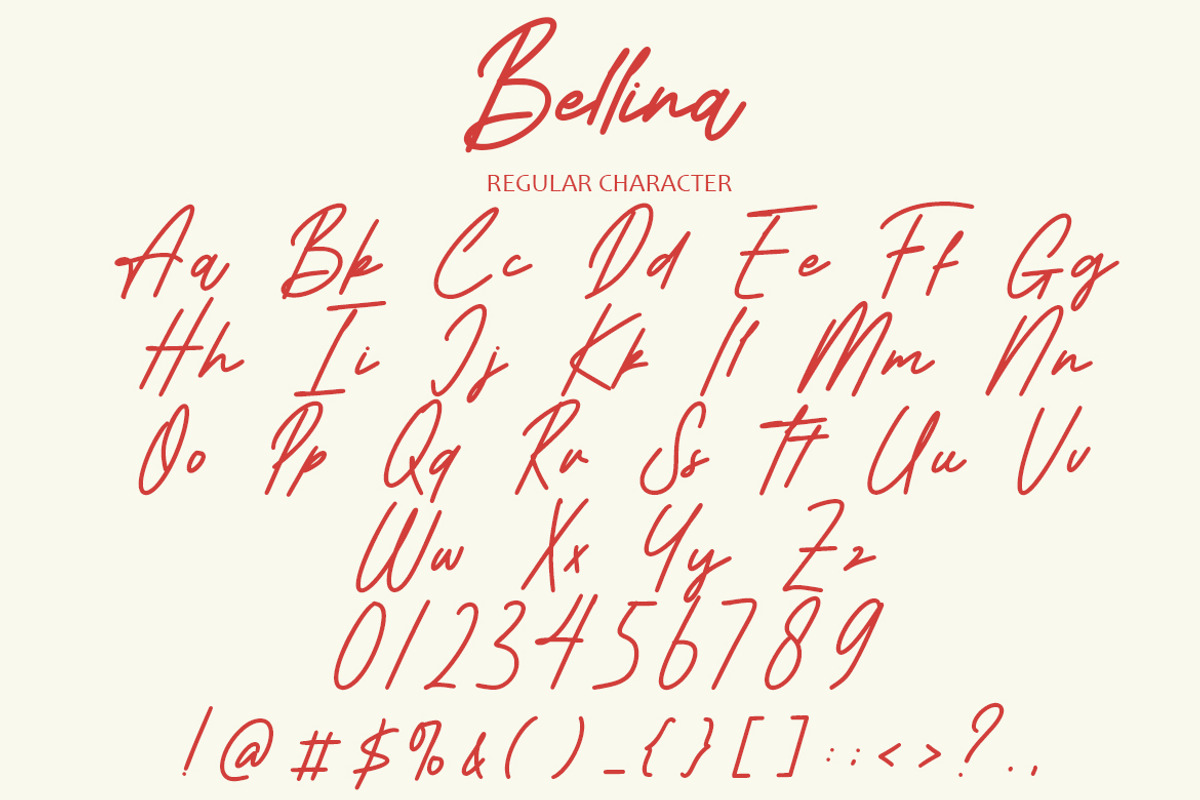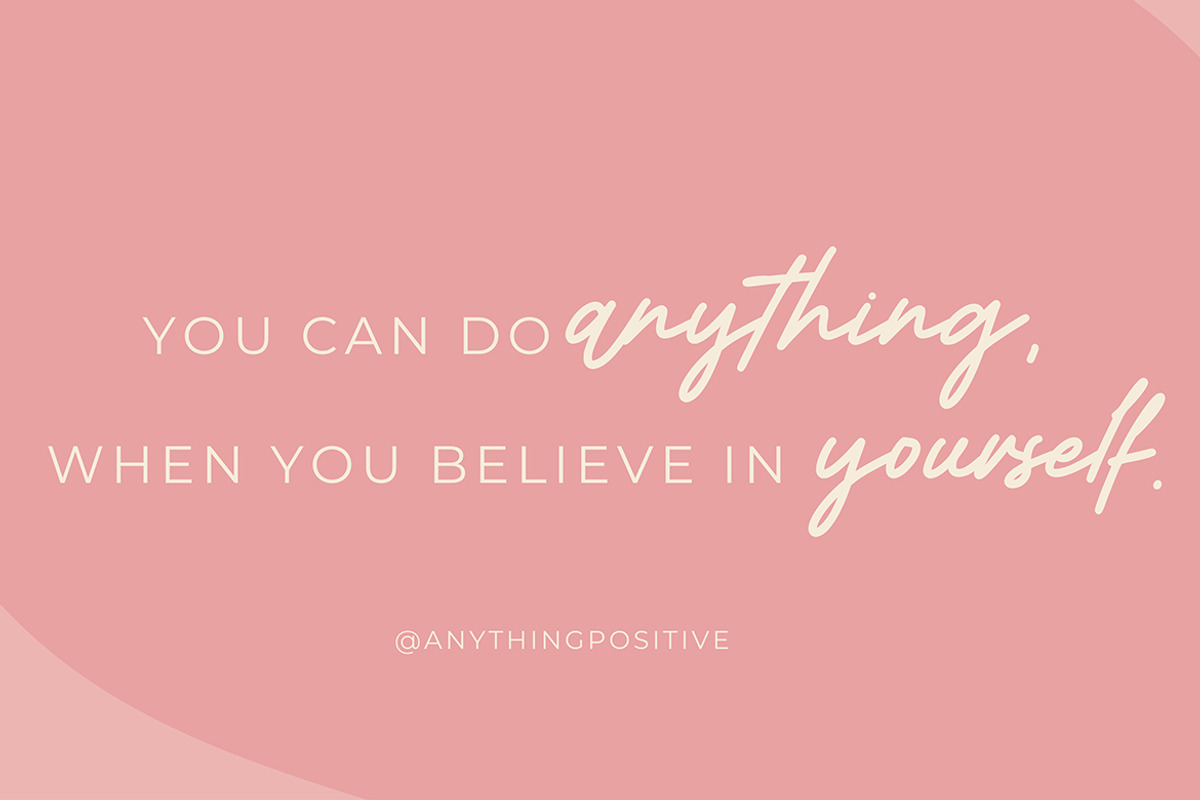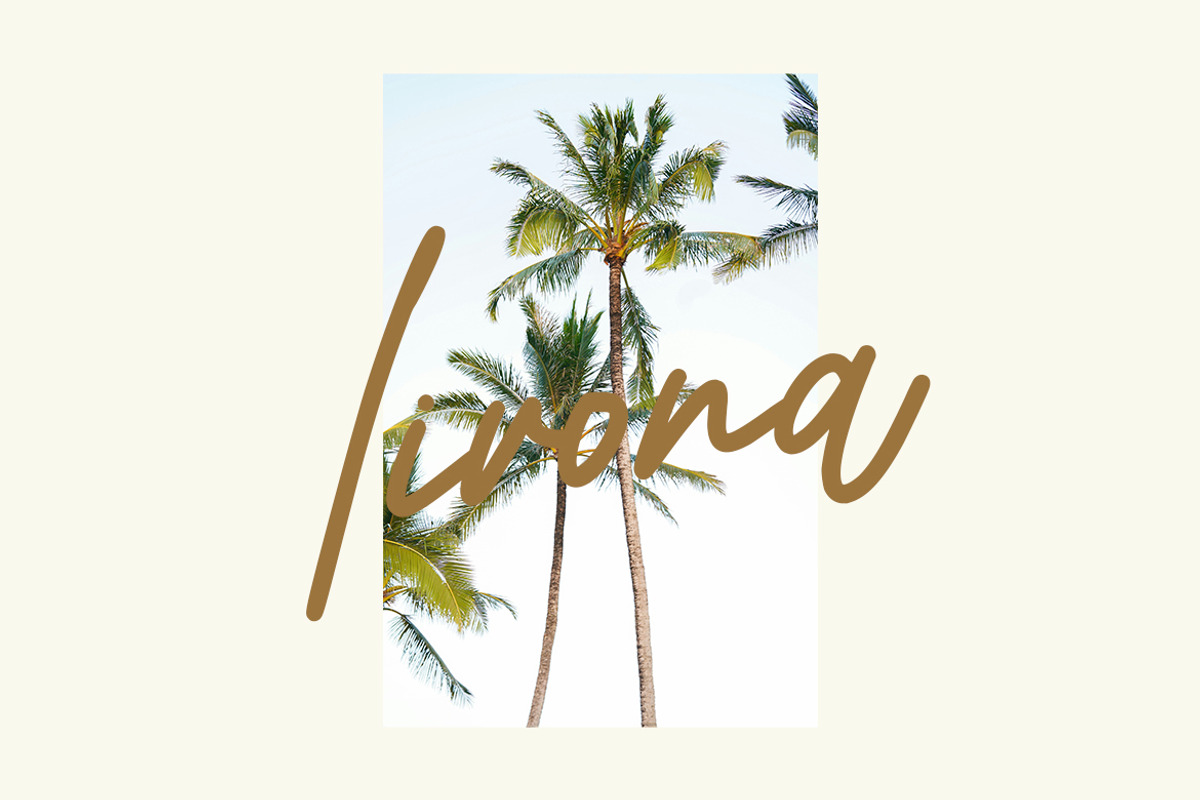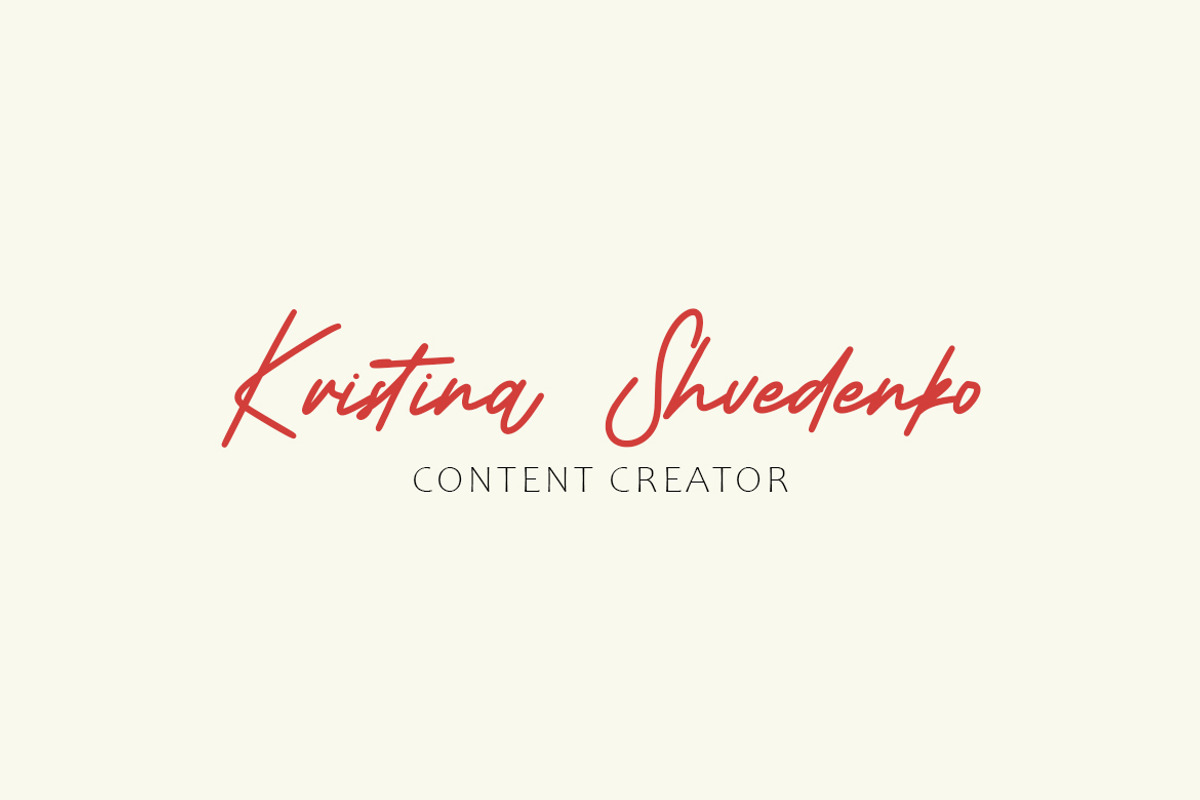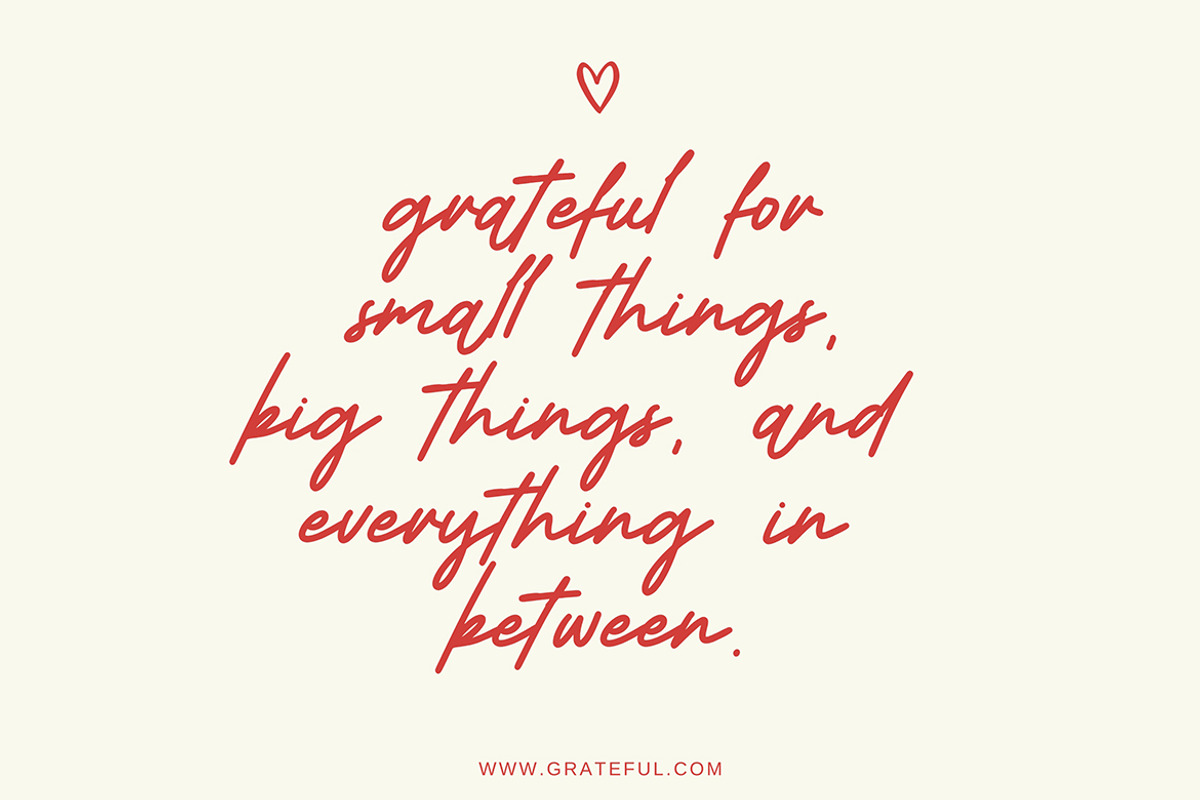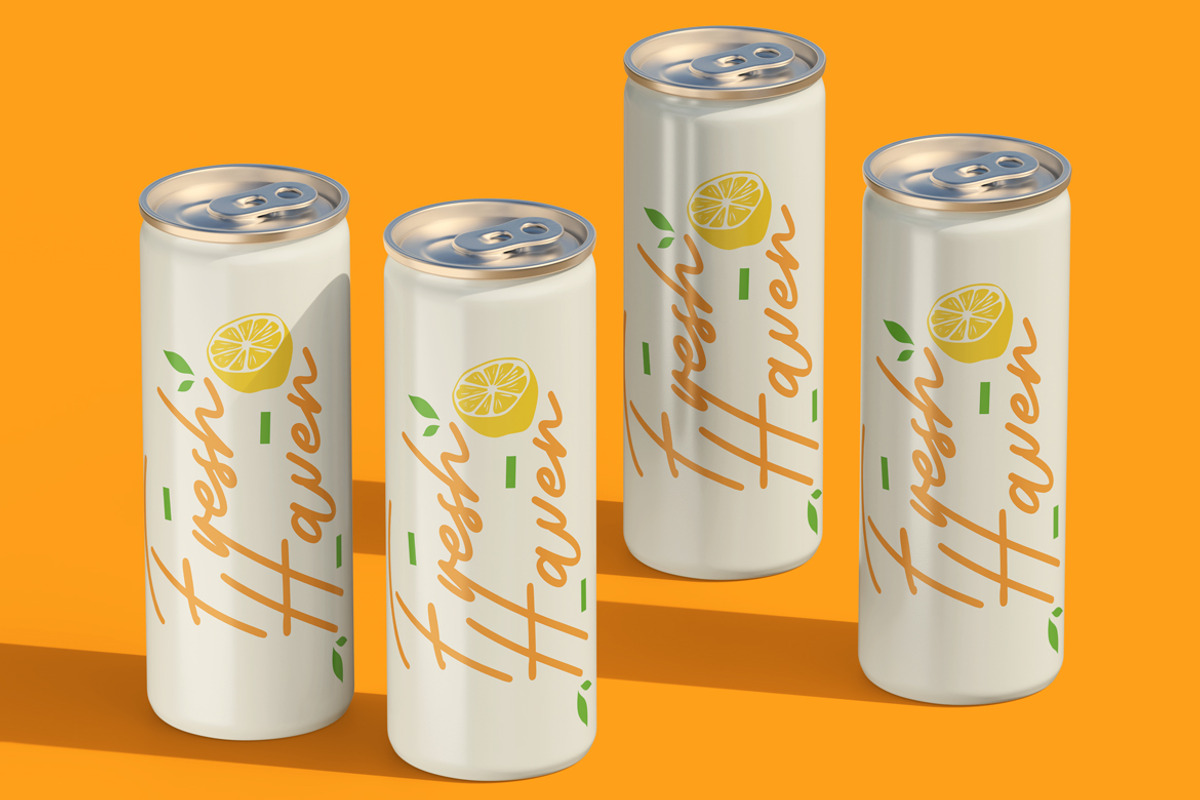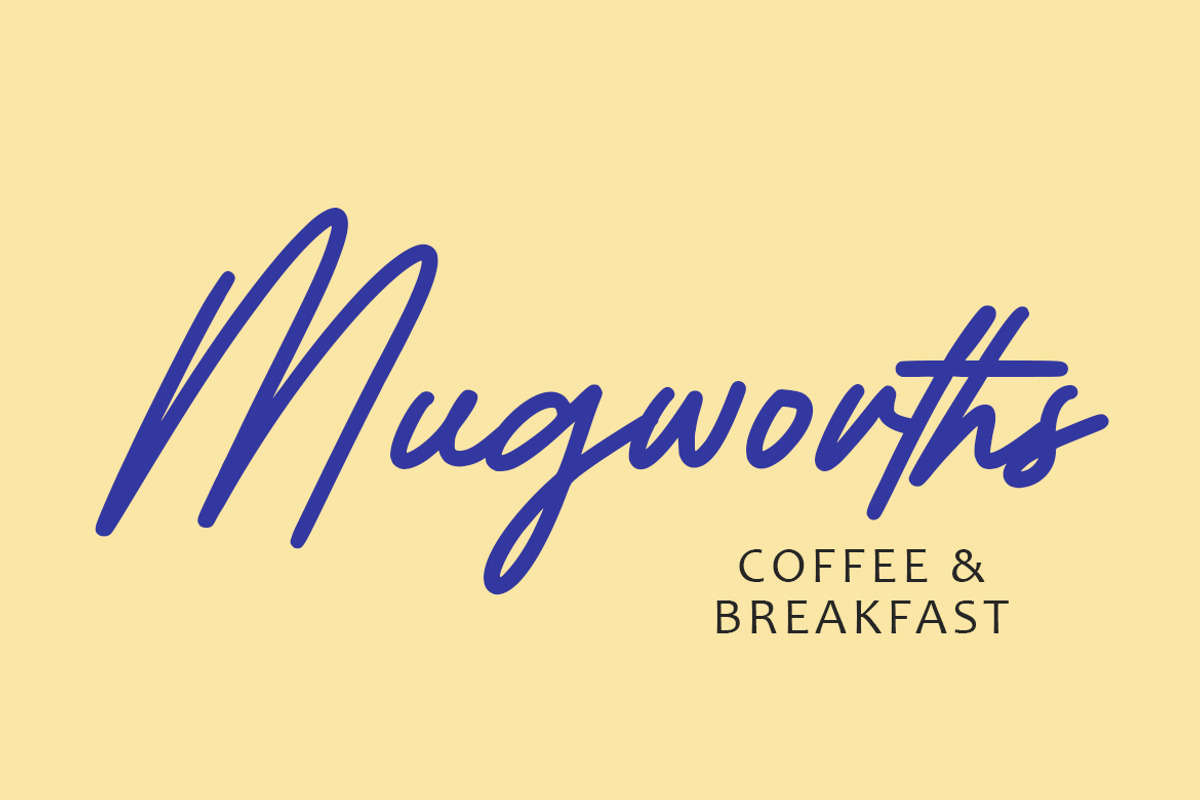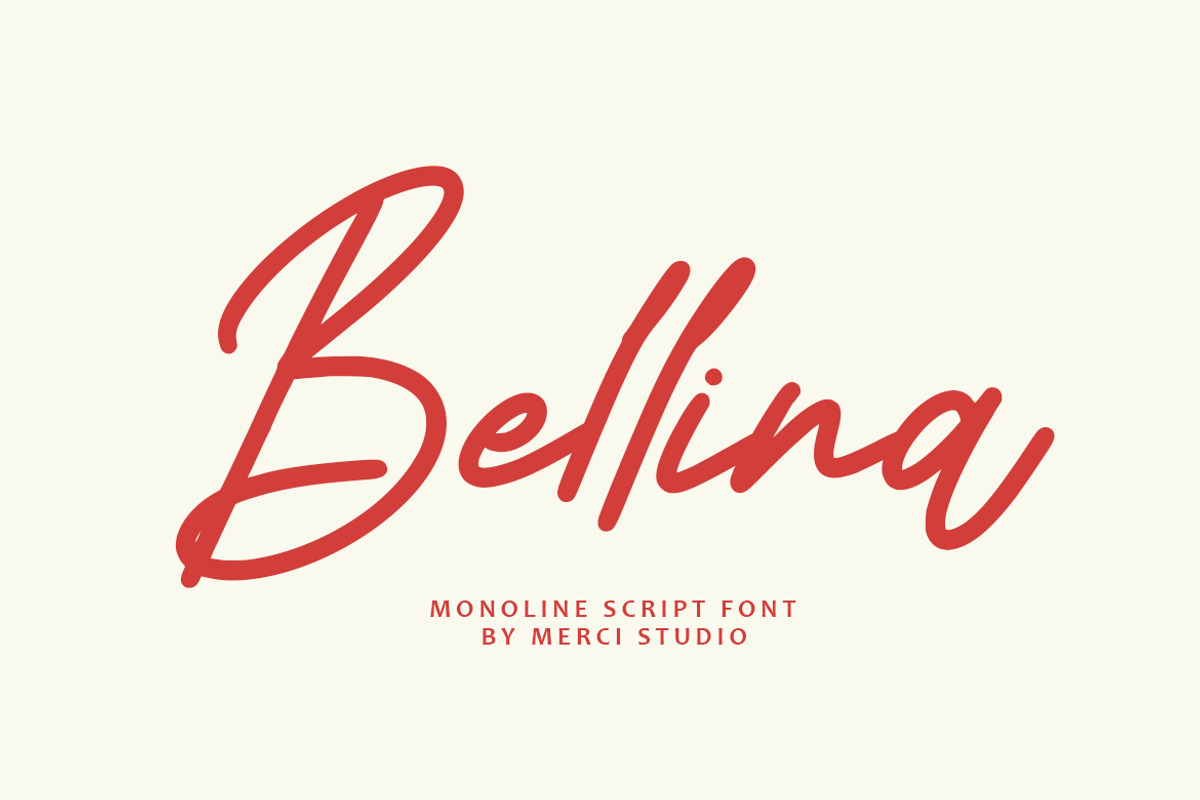
Bellina – Monoline Script Font
Bellina is a charming monoline script font that combines elegance, warmth, and modern simplicity. Designed with fluid strokes and balanced letterforms, this typeface is perfect for adding a personal yet professional touch to your creative projects. Its versatility makes it suitable for branding, packaging, wedding invitations, logos, social media content, and more. Bellina captures the essence of handwritten beauty while keeping a clean and contemporary feel, making it ideal for designers who want to create timeless and memorable typography. Whether used for bold headlines or delicate text, Bellina ensures your design stands out with style.
* Unique Hand-Drawn Style